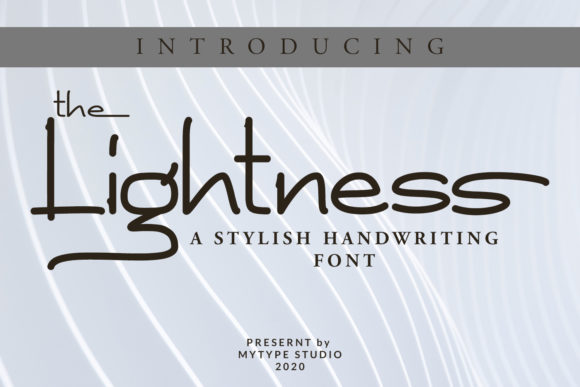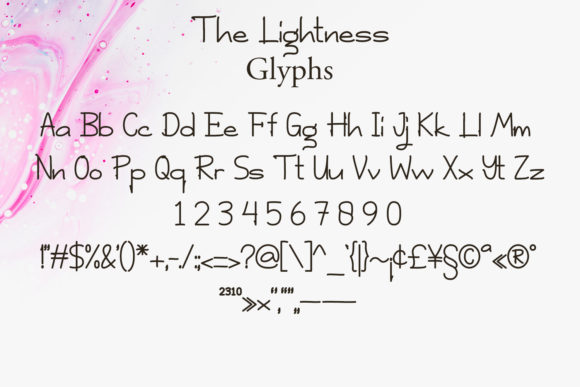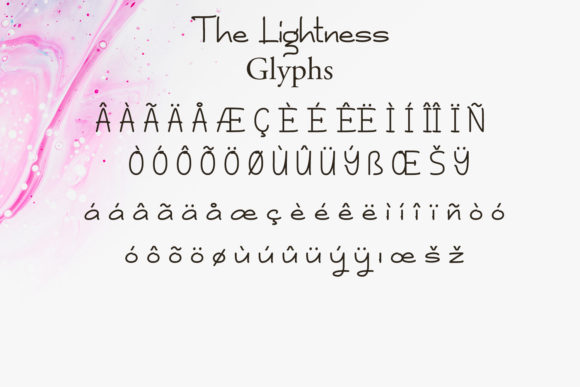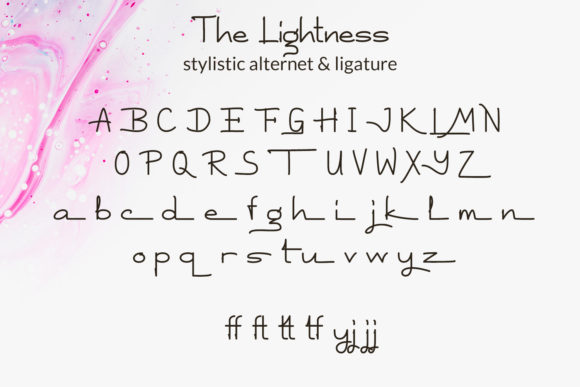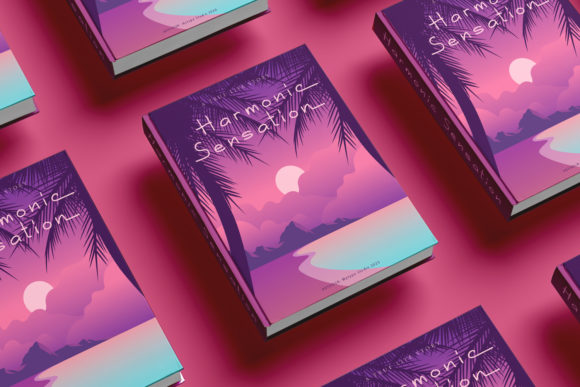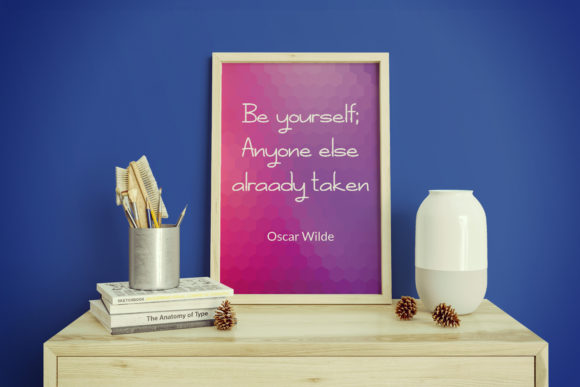
The Lightness Font
About The Lightness Font
The Lightness is a casual and stylish script font. Fall in love with its incredibly versatile style and use it to create spectacular designs!